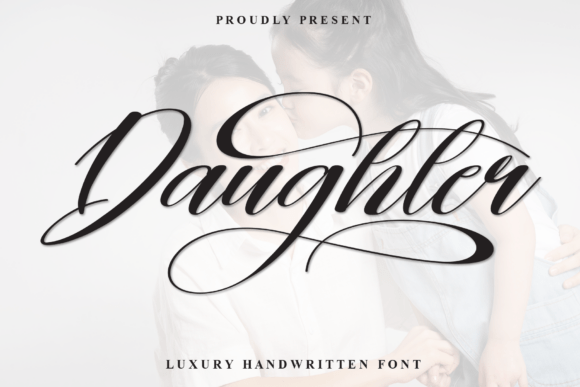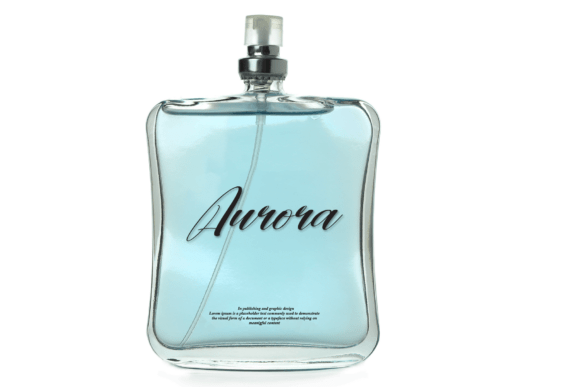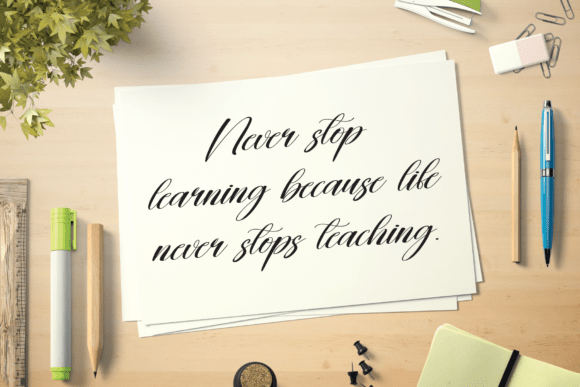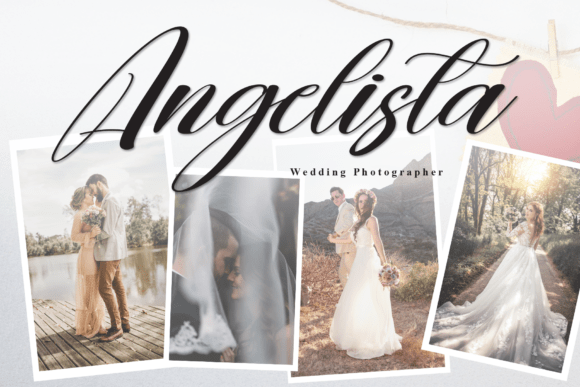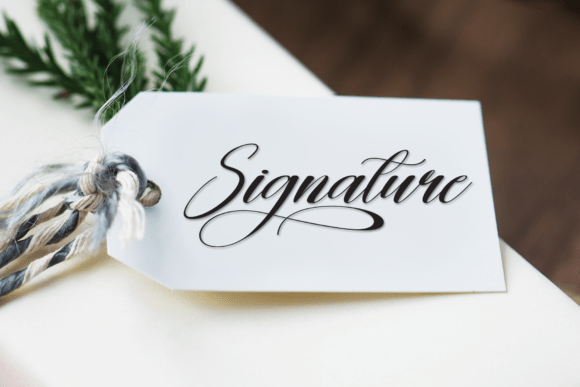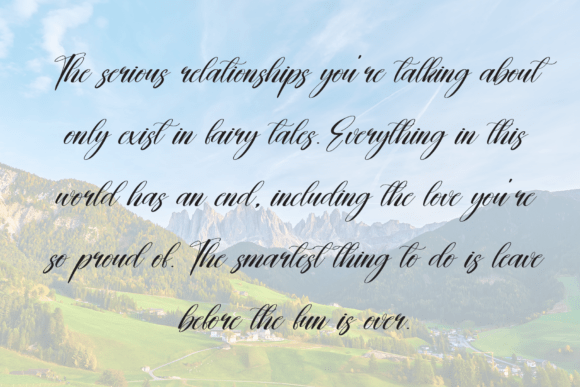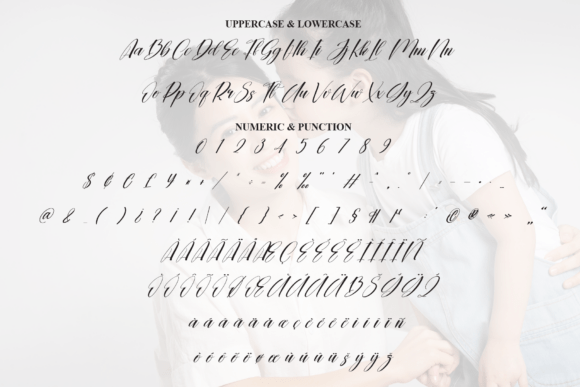
Discover the Timeless Charm of the Daughter Font
As a designer, there’s no feeling quite like the rush of excitement when a project comes together. You’re staring at a blank page, and suddenly, a spark of creativity hits you – the perfect font, the ideal color scheme, the words that will bring your vision to life. For me, that moment often starts with a handwritten font that adds a touch of warmth and personality to any design. And among my go-to choices, one font stands out for its unique beauty: the Daughter Font.
Daughter Font is more than just a pretty face – it’s a versatile tool that can elevate your designs from ordinary to extraordinary. With its elegant, handwritten style, it’s the perfect choice for creating eye-catching logos, branding, and quotes that will leave a lasting impression. Whether you’re a seasoned pro or just starting out, the Daughter Font is an invaluable addition to your design toolkit.
Daughter Font Key Features
- Unique Characteristics: Daughter Font features a unique blend of modern and vintage elements, with intricate details and ornate flourishes.
- Language Support: The font supports a wide range of languages, including Latin, Cyrillic, and Greek alphabets.
- Kerning and Ligatures: Daughter Font includes advanced kerning and ligature pairs to ensure smooth and elegant text rendering.
Designer Review: Daughter Font
Overall, I’m impressed with the Daughter Font, but as with any typeface, it has its strengths and weaknesses.
- The Daughter Font has a unique, friendly feel that’s perfect for body text and titles in informal settings.
- The font’s rounded edges and subtle irregularities give it a hand-drawn look without sacrificing readability.
- The extensive language support makes it a great choice for multilingual projects.
- The Daughter Font may not be the best choice for formal or professional applications due to its casual, playful feel.
- The font’s x-height can be a bit inconsistent, which may affect readability in certain contexts.
Overall, I’d recommend the Daughter Font for projects that require a friendly, approachable tone. While it may not be the best fit for every project, it’s a solid choice for creative, informal, or editorial contexts.
The Daughter Font is commonly used for:
1. Creative projects, such as graphic design and typography.
2. Branding and marketing materials, such as logos and business cards.
3. Digital products, such as ebooks and online courses.
Here are some tips for getting the most out of the Daughter Font:
1. Use it sparingly to add a touch of elegance and sophistication to your designs.
2. Experiment with different font sizes and styles to find the perfect balance.
3. Pair it with other fonts to create a unique and visually appealing combination.
Is the Daughter Font suitable for print or digital applications?
The Daughter Font is suitable for both print and digital applications. Its clean and legible design makes it an excellent choice for digital interfaces, while its compact x-height and subtle nuances make it a great option for print materials, such as business cards and brochures. However, be aware that the font’s legibility may be affected by the size and resolution of the output medium.